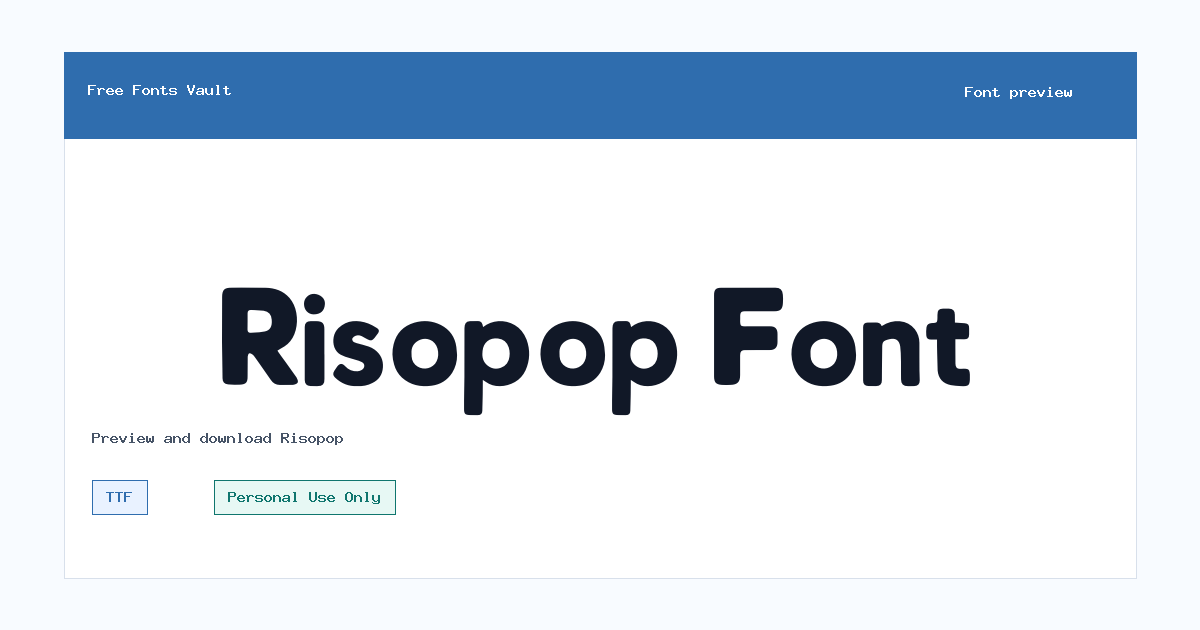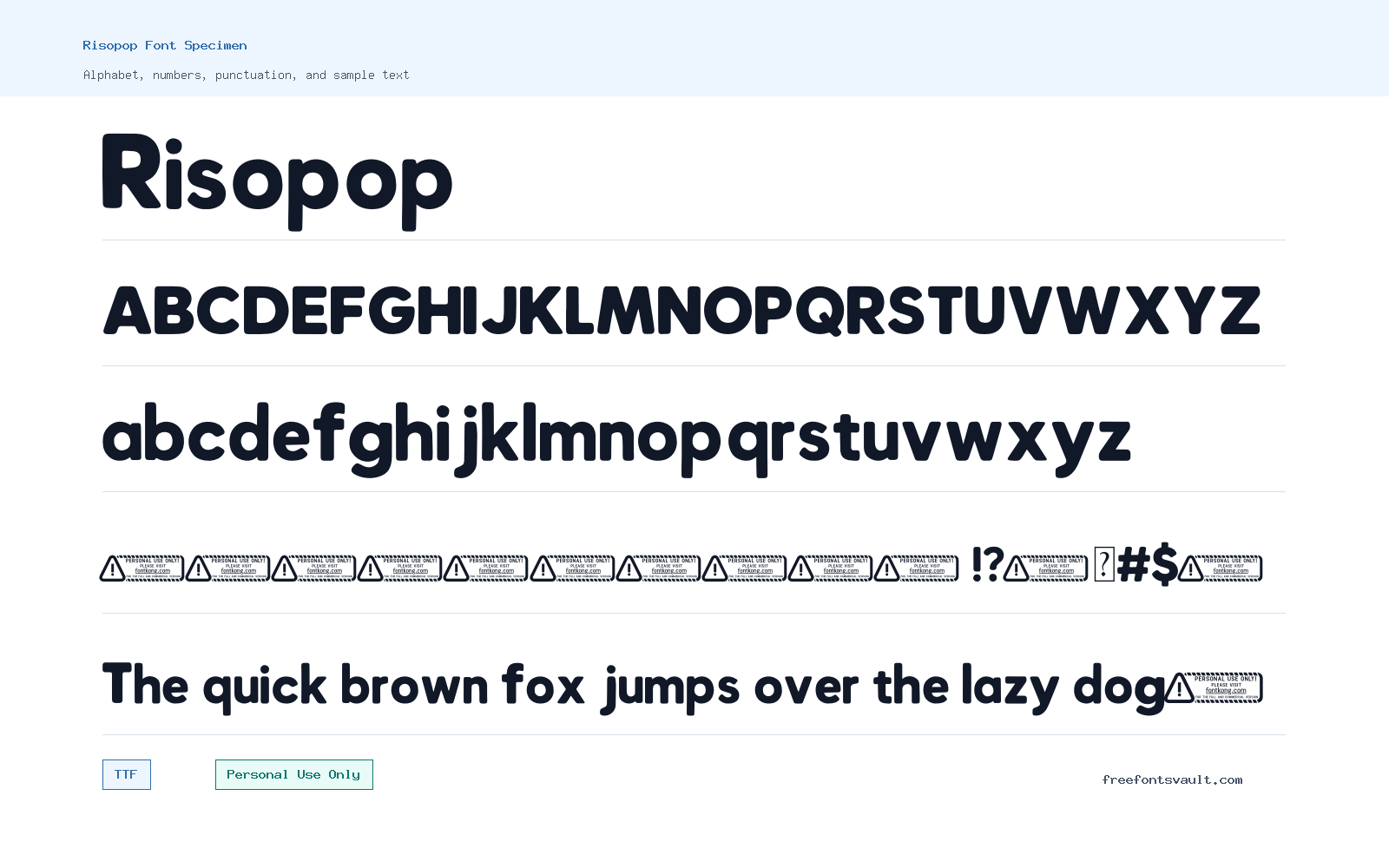
Risopop
Risopop is a bold rounded sans serif font with a soft, chunky look made for short display text. It works best when you want friendly, heavy lettering for titles, posters, thumbnails, stickers, packaging mockups, or personal design experiments.
About Risopop
Risopop has thick, low-contrast letterforms with rounded corners and a playful display feel. The uppercase letters are wide and strong, while the lowercase keeps the same soft, heavy rhythm. It is not a quiet text face; it is the kind of font that asks to be used large, where the rounded shapes and dense strokes can carry the design. Use it for names, labels, short slogans, social graphics, school projects, event artwork, personal poster designs, or quick branding mockups where a cheerful bold sans serif fits the mood.
Because Risopop is very heavy, it needs room around it. Tight line spacing or long paragraphs can make it feel crowded, especially on small screens. Try it first in the preview with your exact words, then check the result at the size you plan to use. It is better for one-line statements than for body copy. If you are testing it for logo concepts, keep the layout simple and let the letters do the work. Pair it with a clean, lighter sans serif for supporting text so the page, poster, or web mockup does not become too dense. Also test numbers and punctuation carefully, as the number keys may not behave like a standard numeral set in the personal-use font file.
- Bold rounded sans serif style with thick, low-contrast strokes for display use
- Soft, chunky letter shapes suited to short titles and playful visual layouts
- Heavy weight that stands out in posters, thumbnails, labels, and web mockups
- Number-key behavior should be checked in the preview because the font may show personal-use warning symbols instead of standard numerals
- Poster headlines and short event titles
- Personal logo concepts and branding mockups
- Social media graphics, thumbnails, and stickers
- Packaging mockups, labels, and playful product concepts
- Children’s project graphics, classroom designs, and casual display text
- Website hero headings or landing-page mockups where only a few words are needed
Use Risopop at larger sizes and keep the text short. For posters or logo mockups, start with one strong word or a compact phrase, then add space around the letters so the rounded shapes stay clear. For web mockups, use it for hero headings or buttons rather than paragraphs. Pair it with a simple neutral sans serif for captions, navigation, descriptions, and other small text. Always preview your exact wording before downloading or installing, especially if your design needs numbers, prices, dates, or detailed punctuation.
What kind of font is Risopop?
Risopop is a bold rounded sans serif display font. It is built for large, short text rather than long reading passages.
Does Risopop work well for body text?
It is not ideal for body text. The heavy rounded strokes are better for headlines, posters, labels, and short phrases.